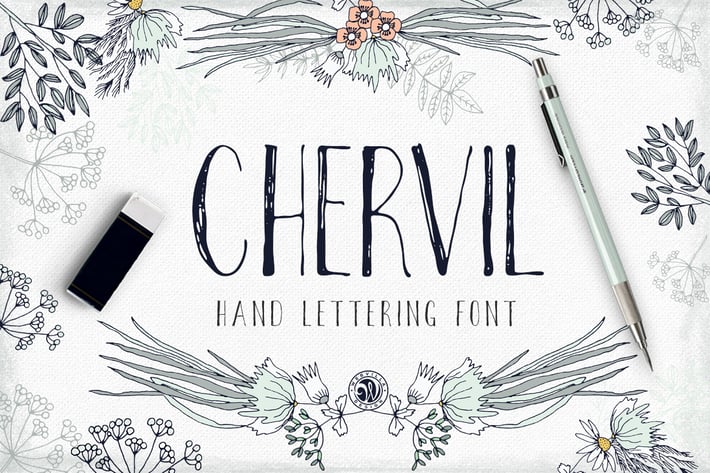
Chervil hand lettering font
Chervil - hand lettering font. Ideal for invitations, logos, branding, blogs, handmade craft items, scrap booking, printed paper items and more.
- all caps font, numbers, punctuation